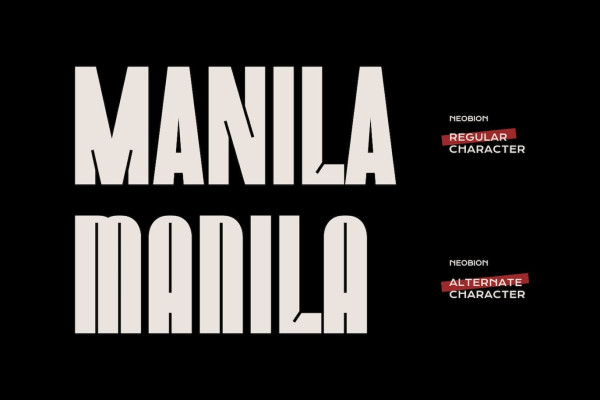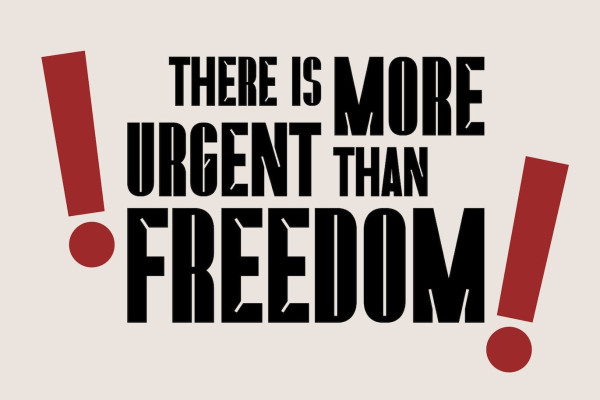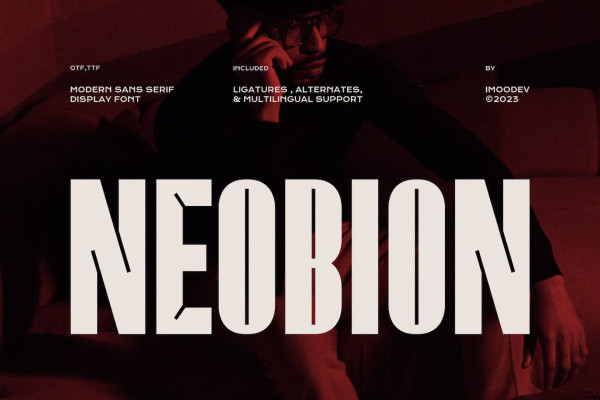
Neobion Font
Neobion Font is a modern typeface that has smooth curves and a visual style a can embody charm and elegance in every lettering, making your work look stunning and attractive.
A versatile font that works in both uppercase and lowercase sizes, suitable for a wide variety of projects such as a display font for heading, logo font, invitations, branding, magazine, photography, card, product packaging, product mockup, mug, poster font, editorial, art deco, film, and any type of advertising purpose.